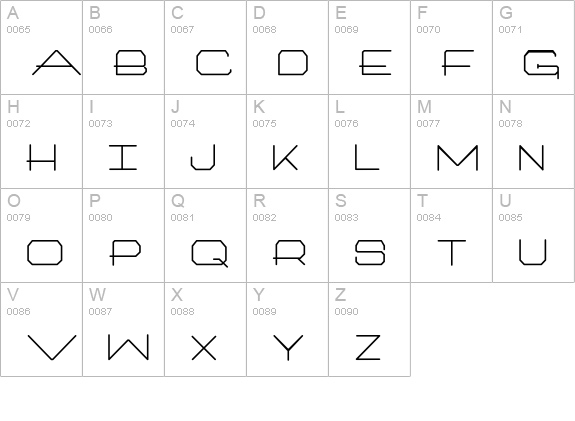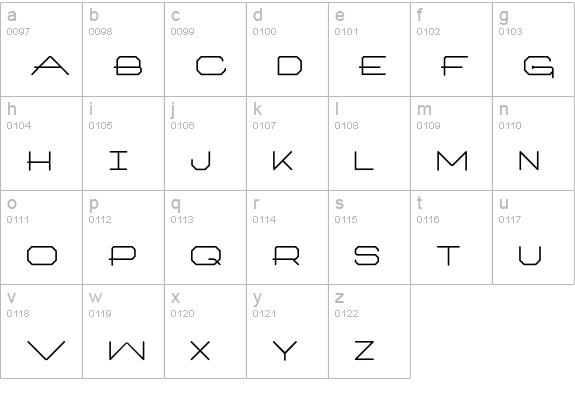
ArchitextOneType Font Details
ArchitextOneType font is a versatile and modern typeface that combines elegance with a touch of architectural inspiration. Its sleek lines and sharp edges make it perfect for a wide range of design projects, from branding to editorial work. This font exudes sophistication and professionalism, making it a great choice for businesses and creatives alike. One of the best features of ArchitextOneType font is that it is available for free download at FontsMarket.com. This means that you can easily access and use this stylish font in your projects without any cost. Whether you are working on a website, poster, or logo design, ArchitextOneType font is sure to elevate your work and make a lasting impression. With its clean and modern aesthetic, ArchitextOneType font is a must-have addition to any designer's toolkit. Download it today from FontsMarket.com and take your designs to the next level with this stunning typeface.